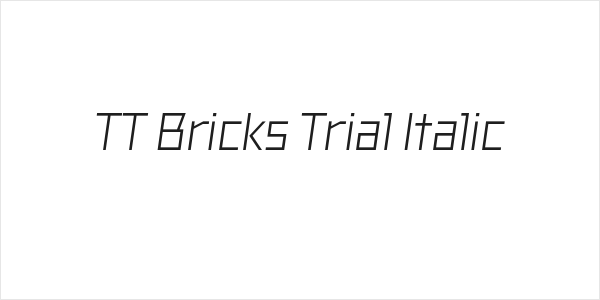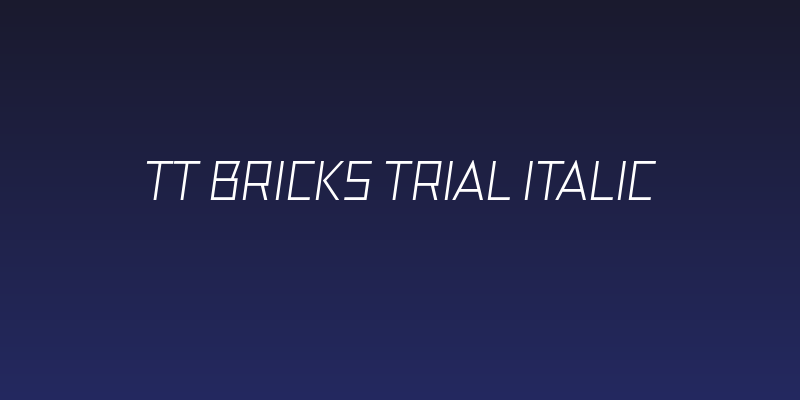
TT Bricks Trial Italic Font
TT Bricks Trial Italic Description
This font exhibits a modern and geometric style with a distinct italic slant, giving it a dynamic and forward-moving appearance. The characters are constructed with clean, straight lines and sharp angles, creating a sense of precision and clarity. The uppercase letters are bold and assertive, while the lowercase letters maintain a consistent style with slightly softer edges. Numbers and special characters follow the same geometric theme, ensuring uniformity across all glyphs. The font's design is both functional and stylish, making it suitable for contemporary projects that require a touch of sophistication.
| Use Case | Headlines, Logos, Digital interfaces |
| Proposed Projects | Ideal for tech branding, modern advertising, digital interfaces, and editorial design. |